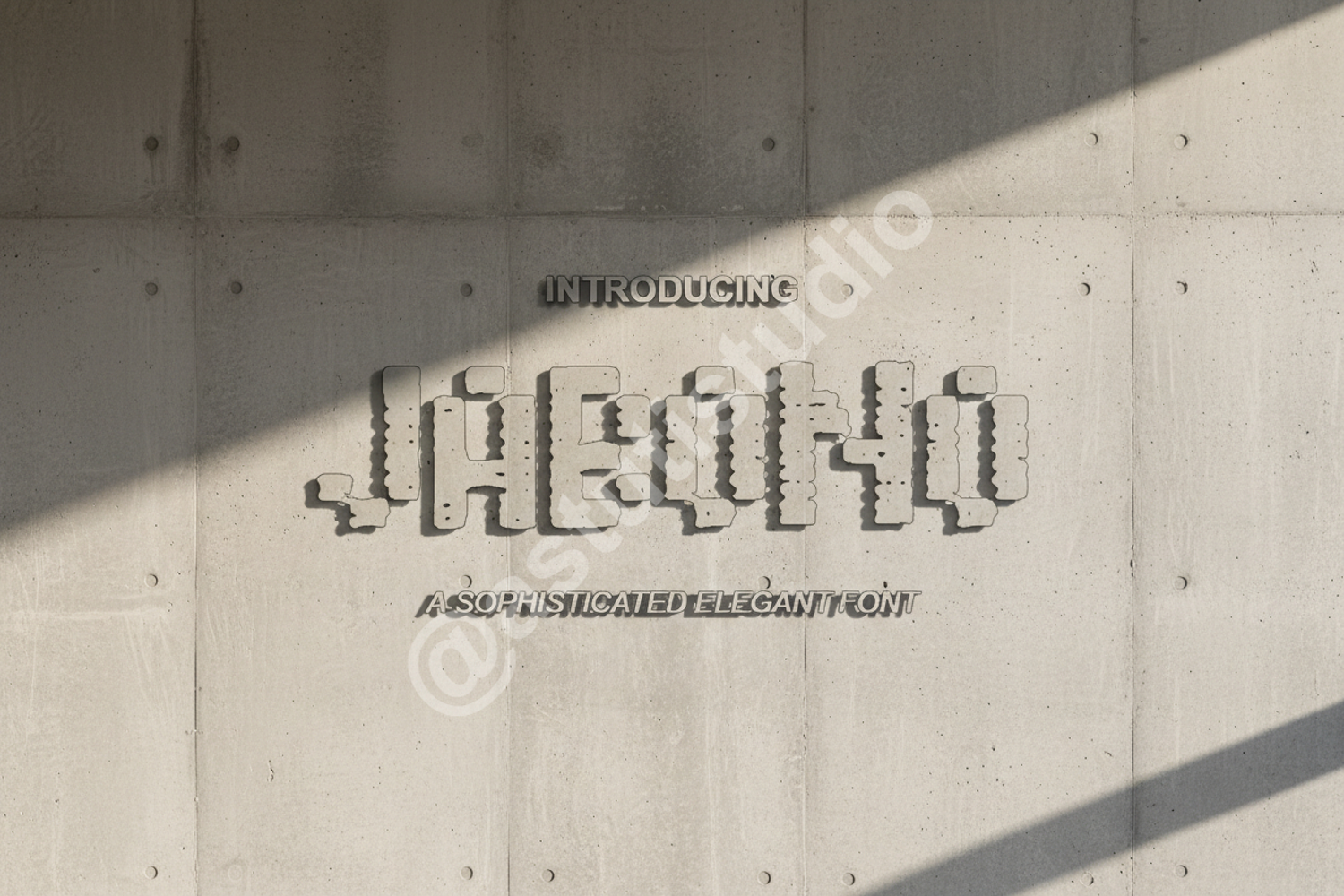
Jabono - Modern Geometric Sans Serif
Jabono
Jabono is a premium geometric sans serif font that embodies sophistication and modern elegance. Designed with precision, this typeface offers a clean and balanced aesthetic that elevates any creative project. Whether you are building a brand from scratch or looking for a versatile display font, Jabono provides the clarity and style required for professional results.
- Full character set including uppercase, lowercase, numbers, and punctuation
- Comprehensive multilingual support
- Branding and Identity: Create memorable logos and cohesive brand guidelines.
- Editorial Design: Perfect for magazine layouts, headers, and body text.
- Digital Presence: High legibility for websites and mobile applications.
- Print Media: Ideal for business cards, posters, and luxury packaging.
- Wedding Stationery: Add a modern, minimalist touch to invitations and programs.